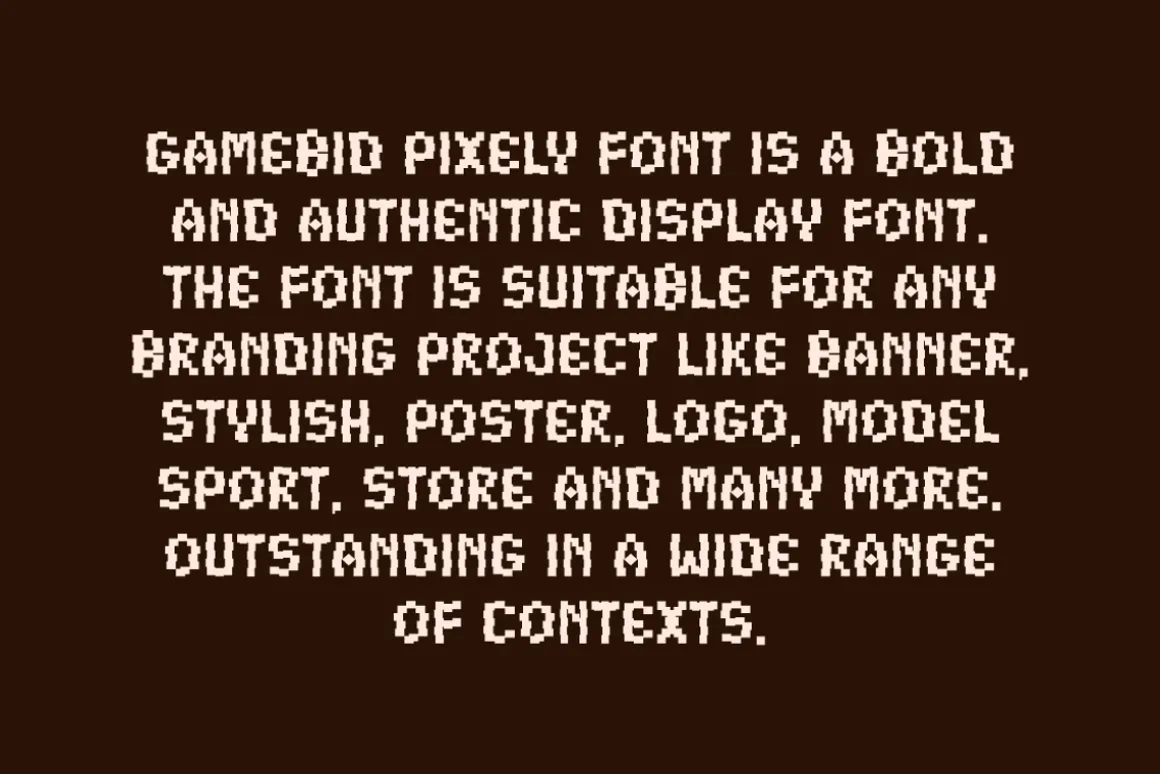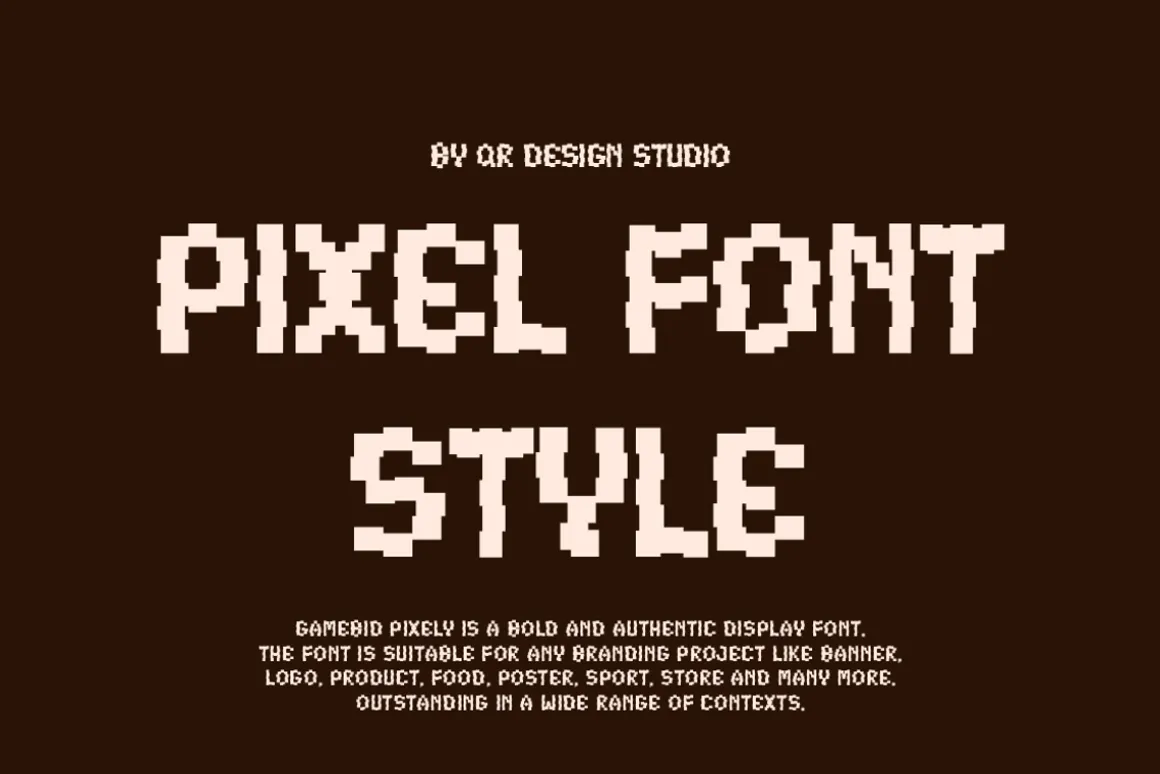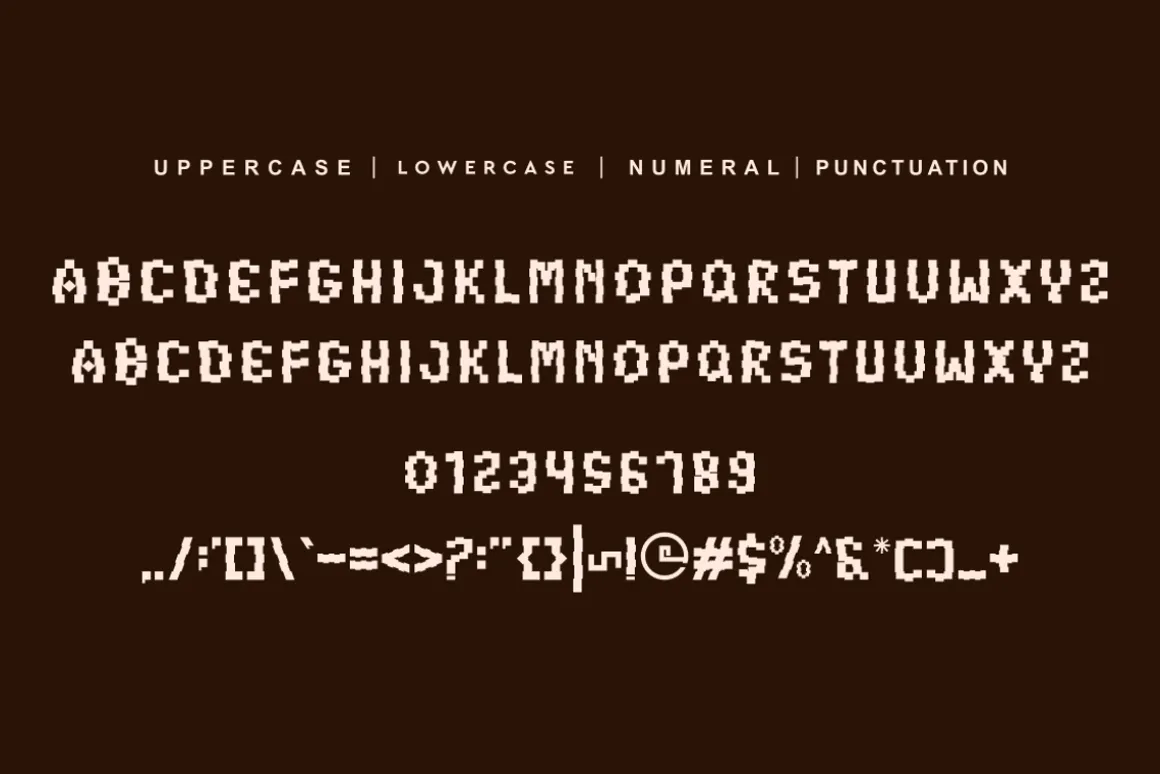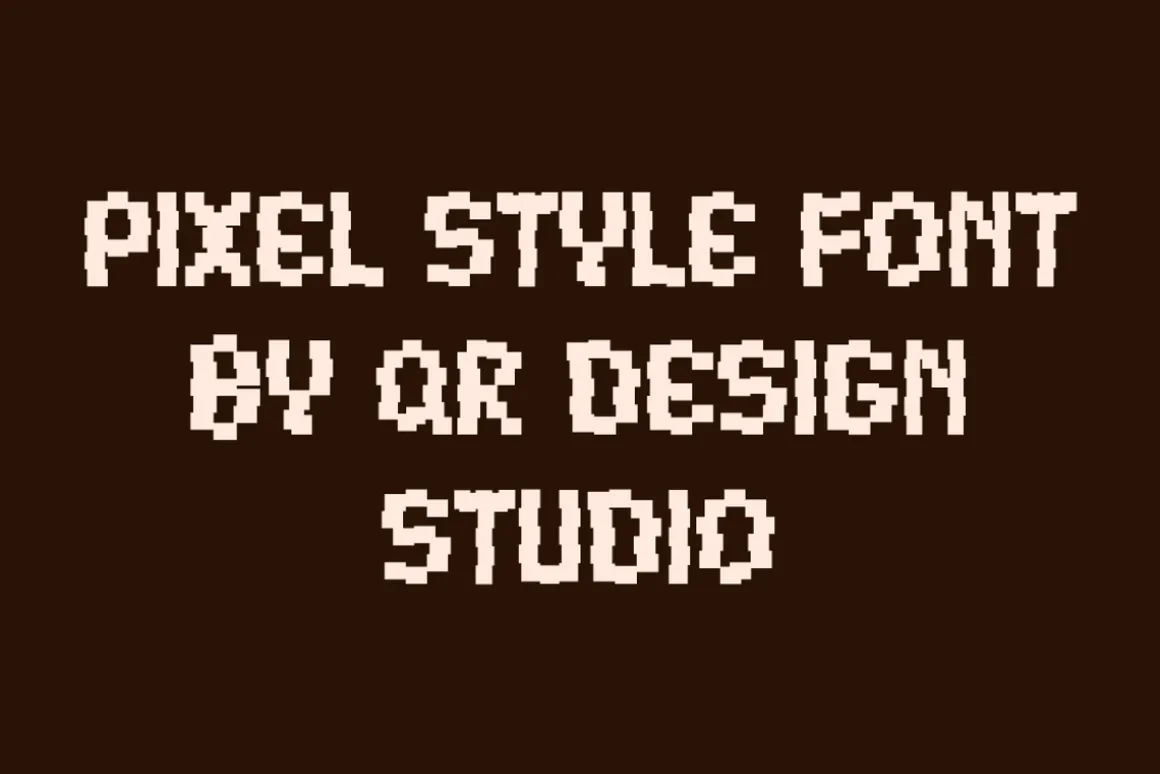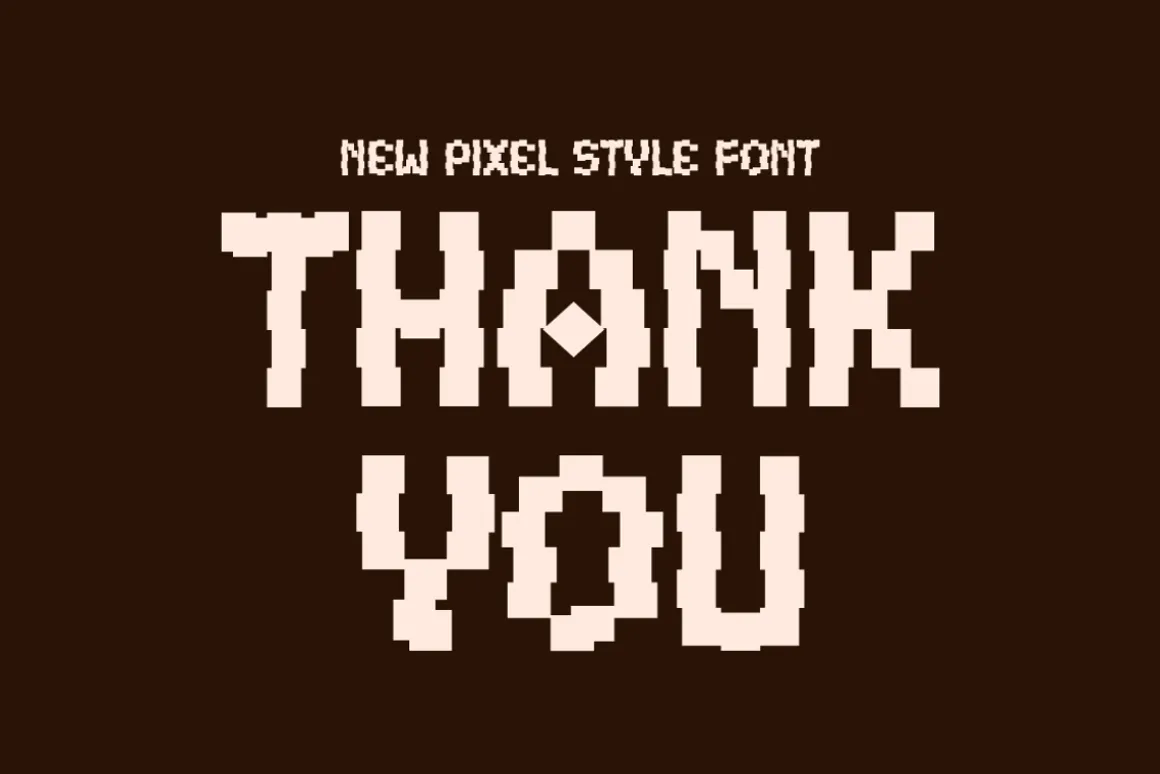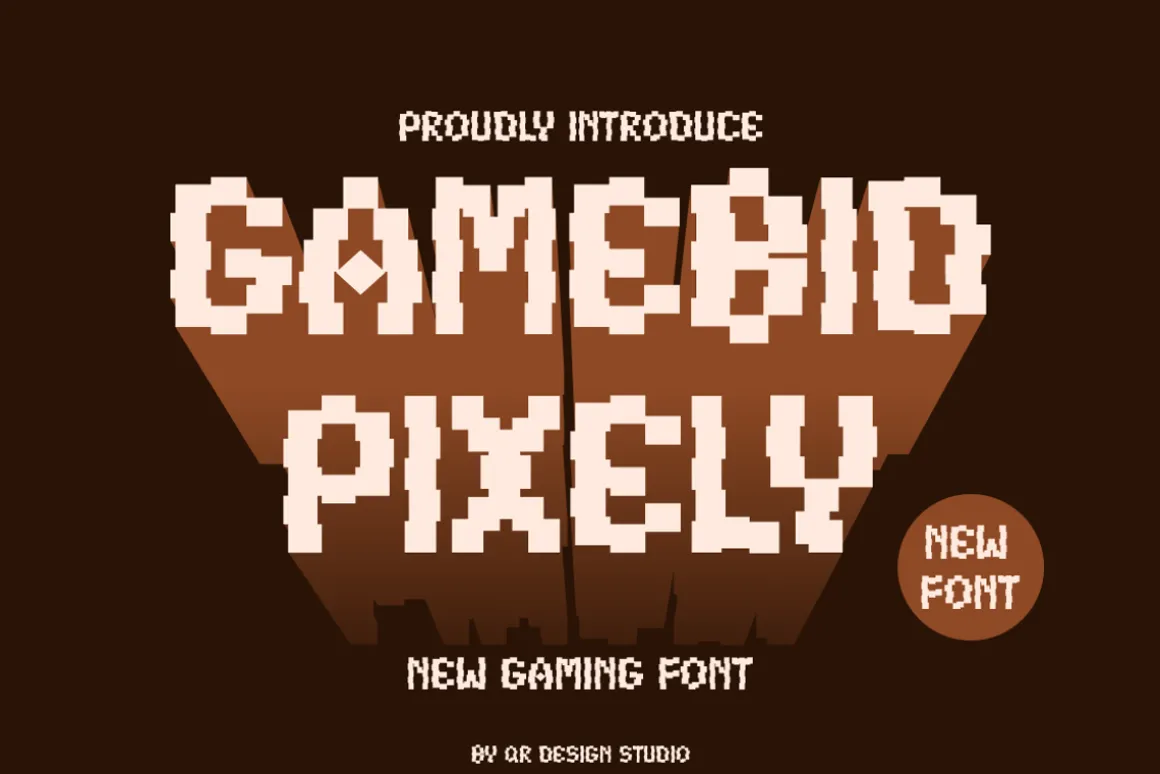
Gamebid Pixely – Game Font is a bold and authentic display font.The font is suitable for any branding project like game, poster, logo, sport, and many more.Outstanding in a wide range of contexts.